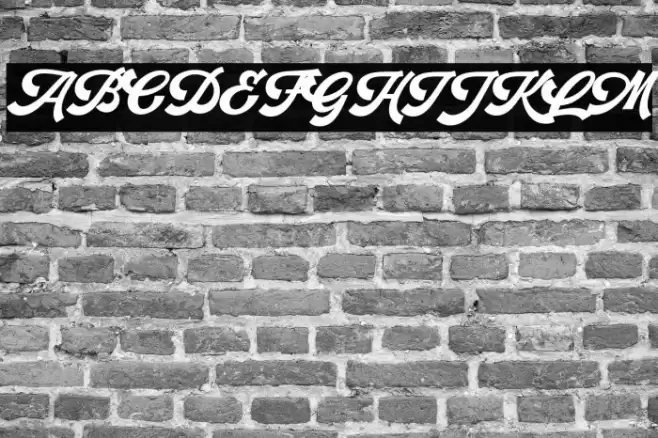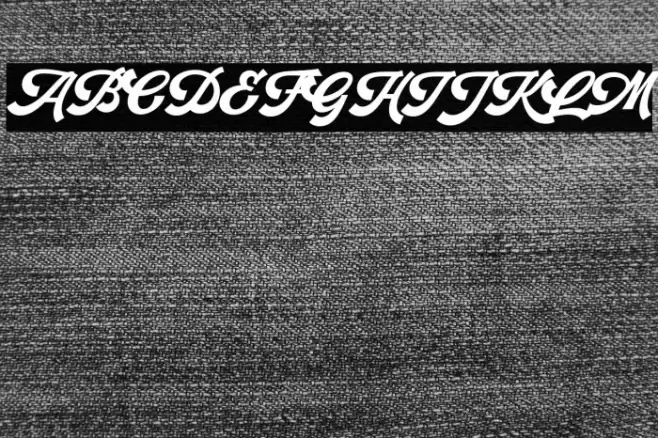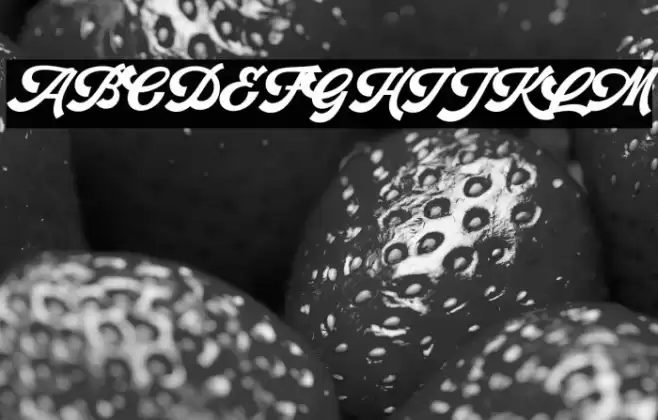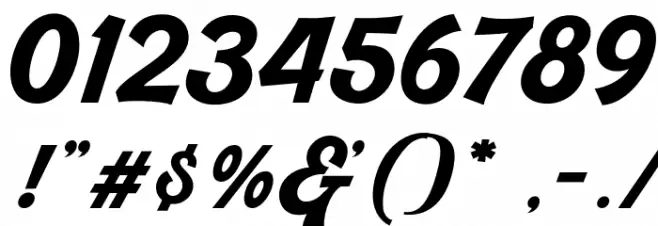
RetrofunkScriptPersonalUse Font
RetrofunkScriptPersonalUse Description
This font features a bold, flowing script style with a retro flair. The uppercase letters are characterized by their sweeping curves and dramatic flourishes, giving them a sense of movement and elegance. The lowercase letters maintain a consistent style, with rounded forms and smooth connections between characters. The numerals are bold and clear, matching the overall aesthetic of the font. Special characters are designed with the same attention to detail, ensuring a cohesive look across all symbols. This font is ideal for projects that require a touch of vintage charm and personality.
A bold, retro script font with elegant curves and dramatic flourishes from Uncategorized fonts.
- Proposed Projects: Ideal for branding, logos, invitations, and retro-themed designs.
- Overall Style: Vintage
- Use Case: Logos, Headlines, Invitations